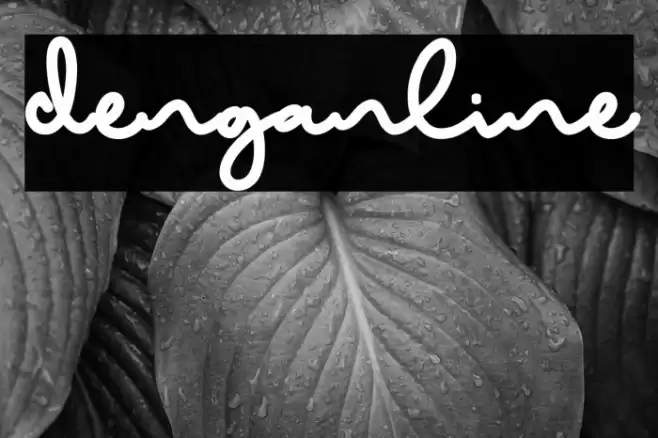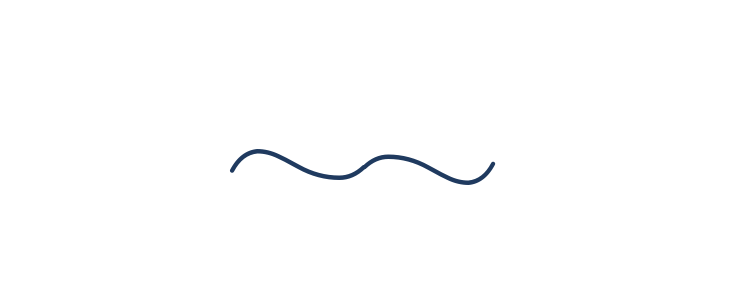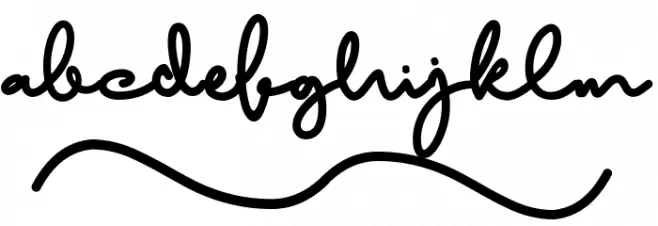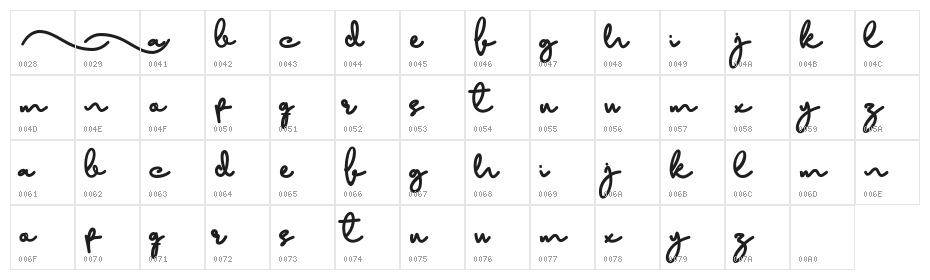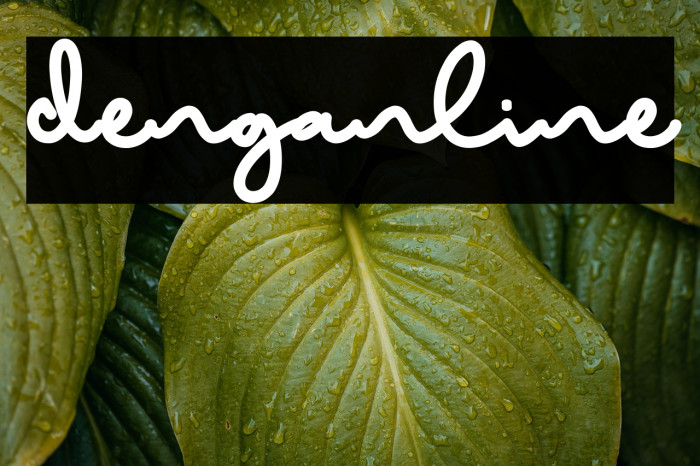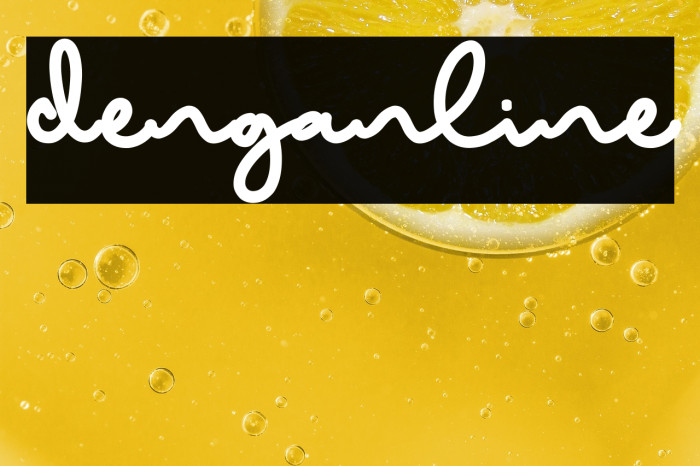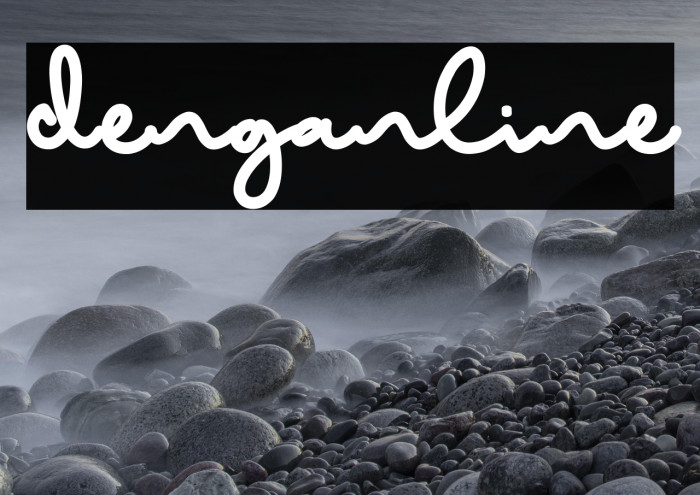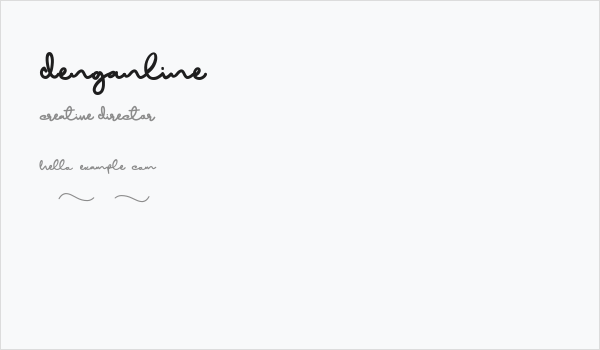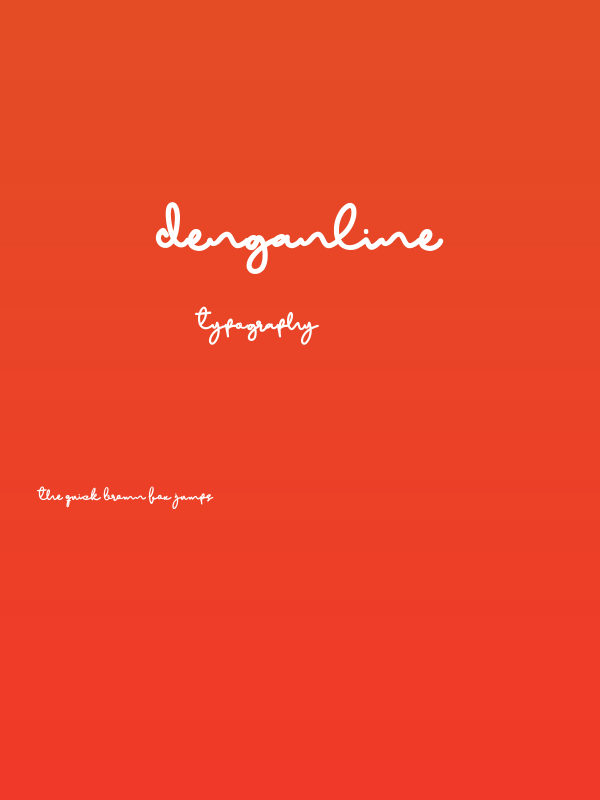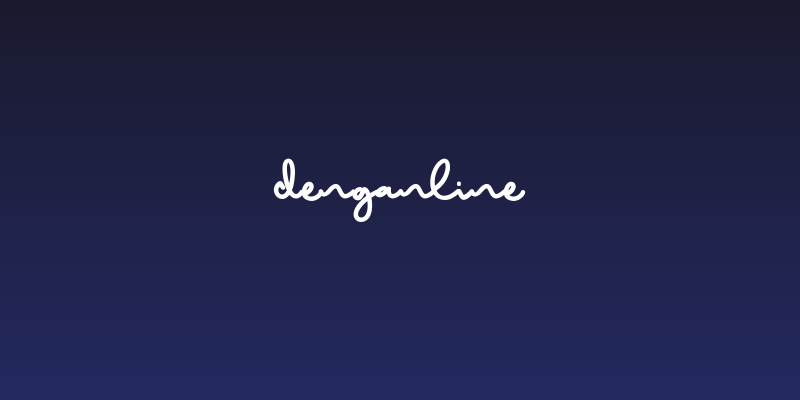
Denganline Font
Denganline Description
This font exudes a casual and playful handwritten style, characterized by its smooth, flowing curves and connected letters. The strokes are consistent in width, giving it a uniform appearance that enhances readability while maintaining a personal touch. The lowercase letters are particularly distinctive, with rounded forms and a slight slant that adds to the informal aesthetic. The font's overall design is reminiscent of a relaxed, friendly script, making it suitable for projects that require a personal or approachable feel. Its simplicity and elegance make it versatile for various applications.
A casual, playful handwritten font with smooth, flowing curves and connected letters from Regular fonts.
- Proposed Projects: Ideal for greeting cards, personal branding, invitations, and social media graphics.
- Overall Style: Casual, Playful
- Use Case: Logos, Headlines, Invitations